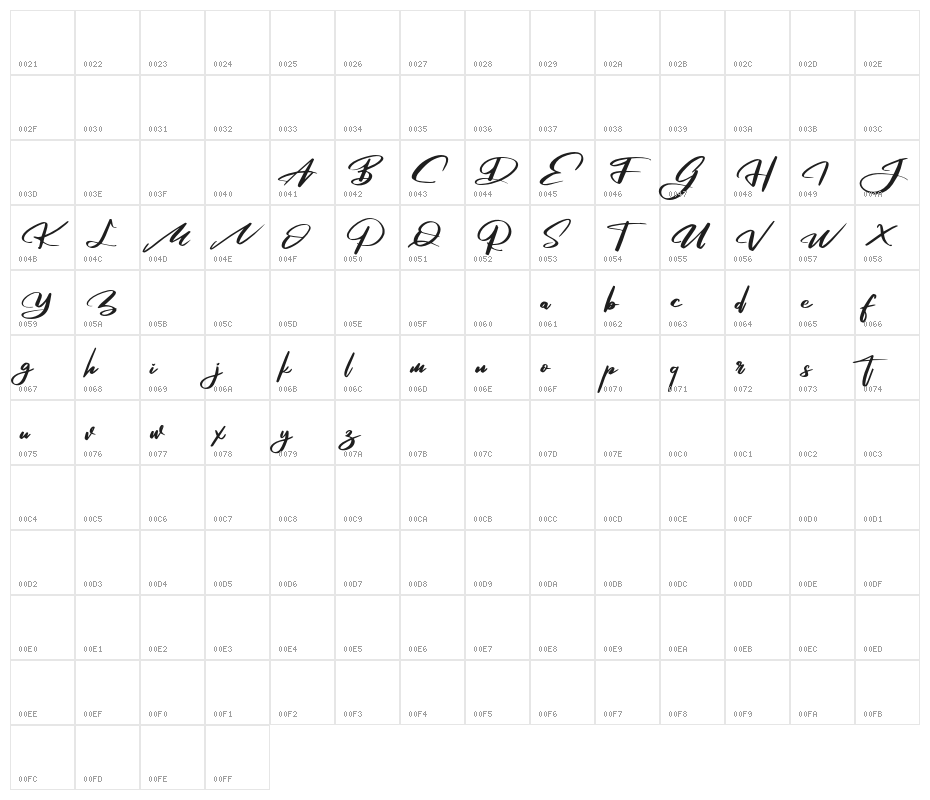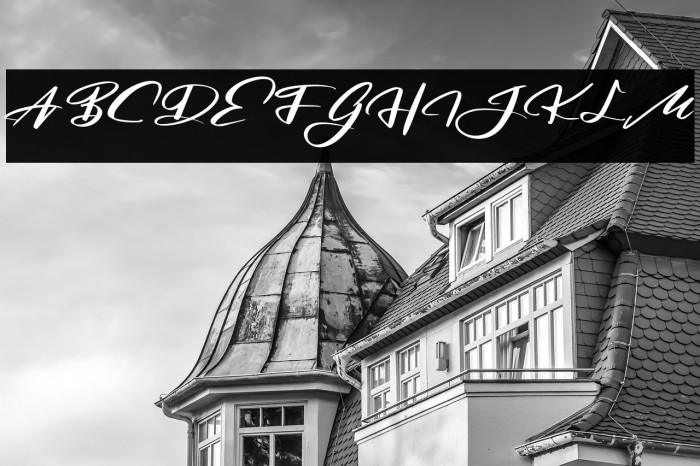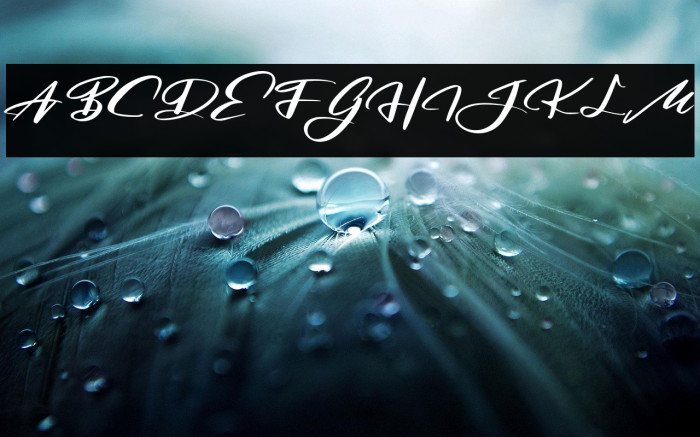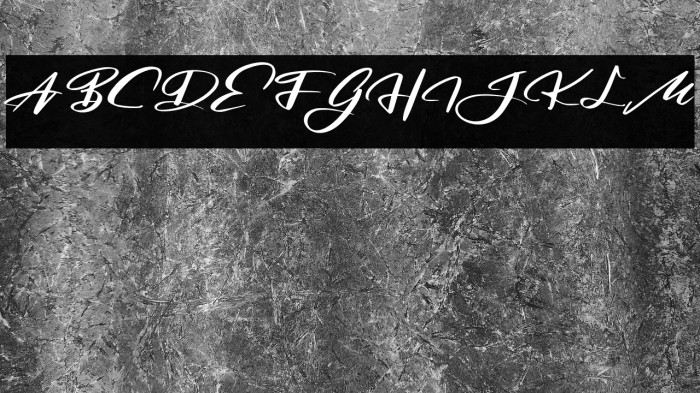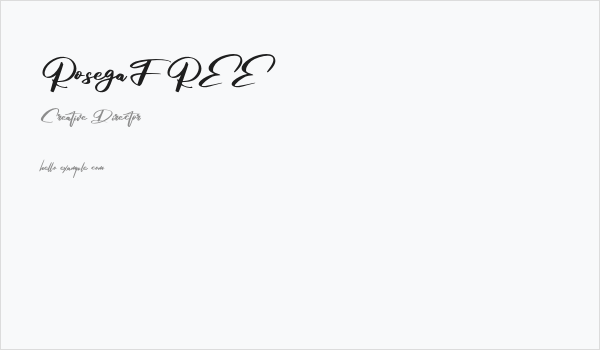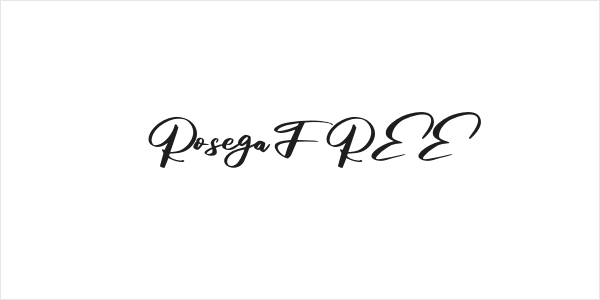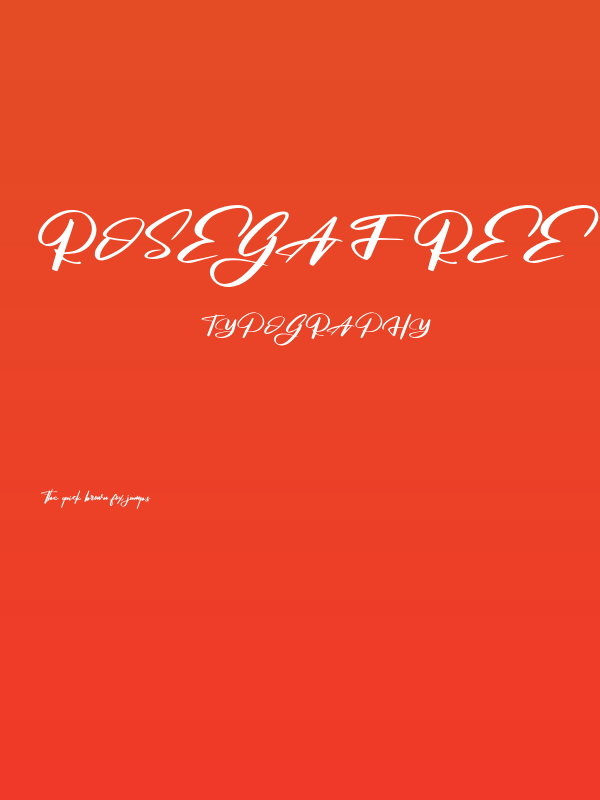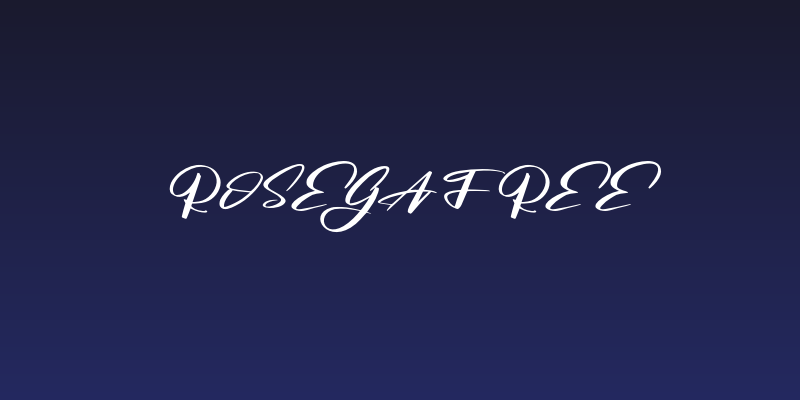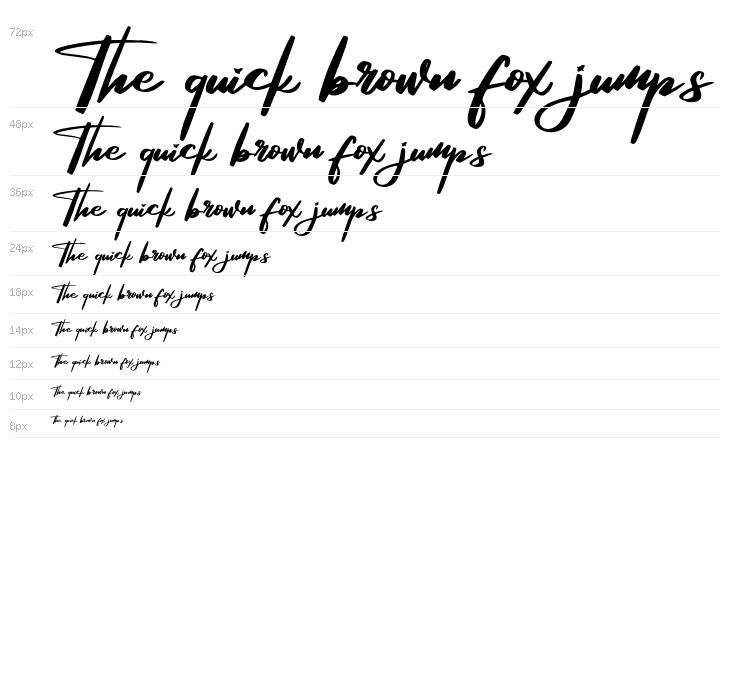
RosegaFREE Font
RosegaFREE Description
This font features a dynamic and flowing script style, characterized by its elegant and cursive letterforms. The uppercase letters exhibit a graceful, sweeping motion, while the lowercase letters maintain a consistent fluidity, adding a touch of sophistication. The strokes are smooth and connected, creating a harmonious rhythm throughout the text. The font's design is both stylish and versatile, making it suitable for a variety of creative projects. Its handwritten appearance adds a personal and artistic flair, perfect for conveying a sense of elegance and charm.